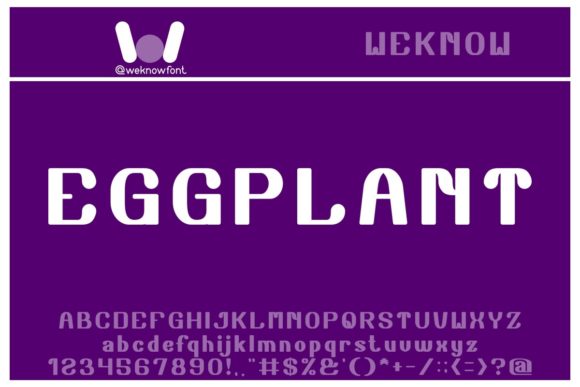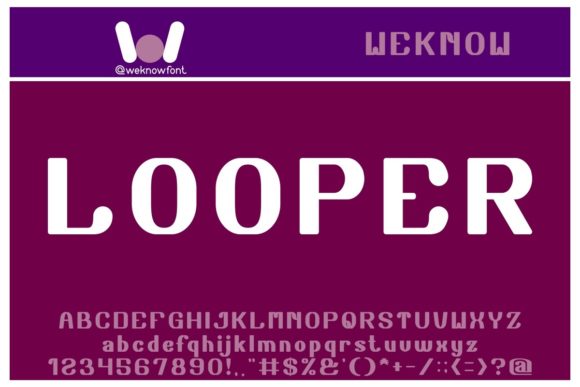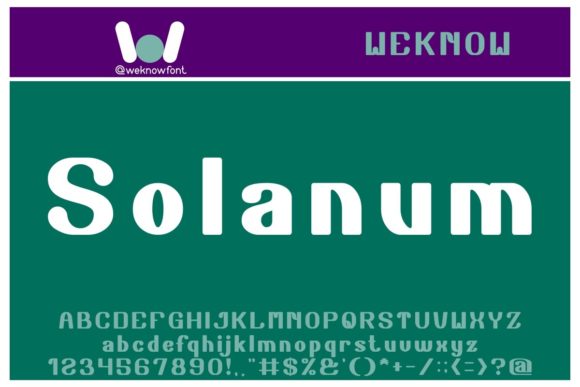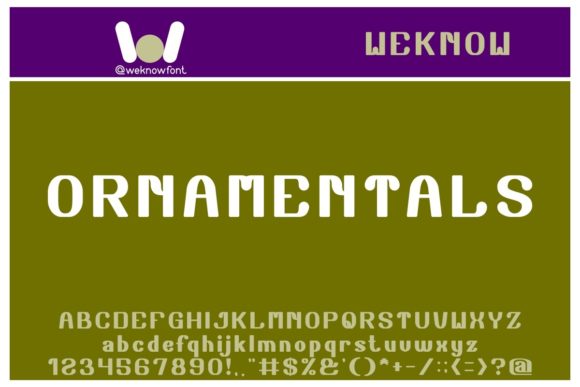
The Ultimate Guide to Chalk Board Font: A Designer’s Best Friend
I’ll never forget the time I was working on a project for a trendy coffee shop, and I needed a font that would capture their fun and edgy vibe. After hours of scrolling through font libraries, I stumbled upon Chalk Board Font, and it was love at first sight! 💕 The bold, cool-looking letters instantly transported me to a chalkboard in a hipster cafe. If you’re a designer, crafter, or creative hobbyist looking for a font that packs a punch, you’re in the right place!
An Honest Review of Chalk Board Font
- ✨ Bold and eye-catching: Chalk Board Font is perfect for making a statement. Its chunky letters demand attention and are sure to elevate your design.
- ✅ Versatile: Whether you’re designing a logo, creating a poster, or crafting a social media graphic, this font adapts seamlessly to various contexts.
- 💻 Easy to read: Despite its boldness, Chalk Board Font remains surprisingly legible, even at smaller sizes.
While Chalk Board Font is an amazing addition to any design project, there are a few things to keep in mind:
- 🤔 Overuse can be overwhelming: Because of its bold nature, it’s easy to overuse Chalk Board Font. Make sure to balance it with other fonts or whitespace to avoid visual fatigue.
- ⚠️ Limited suitability for body text: While it’s great for headlines and titles, Chalk Board Font might not be the best choice for longer blocks of text. Its boldness can be overwhelming for readers.
The Backstory of Chalk Board Font
Legend has it that Chalk Board Font was inspired by the classic chalkboards found in schools and cafes. The designer, a creative genius with a passion for typography, wanted to bottle up the nostalgic feel of handwritten chalkboard text into a digital font. And so, Chalk Board Font was born!
| Font Name | Chalk Board Font |
| Author | weknow |